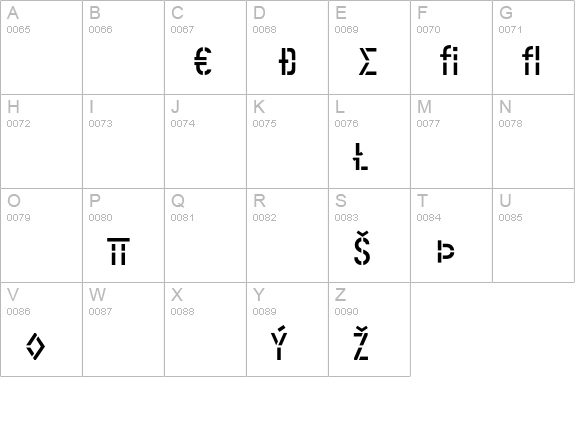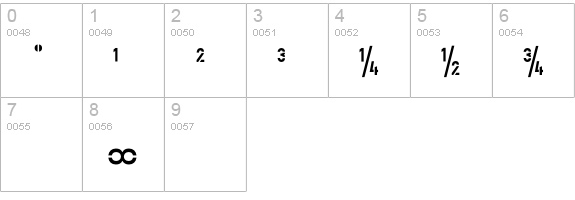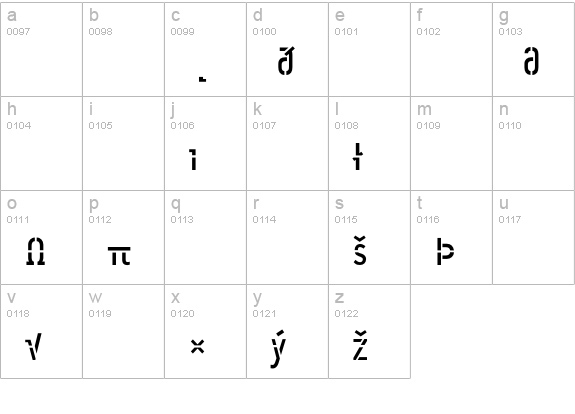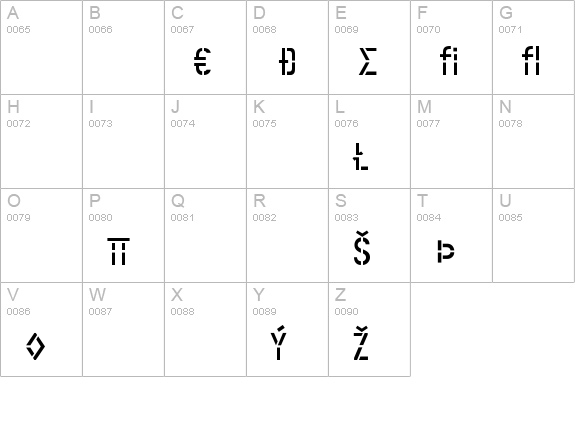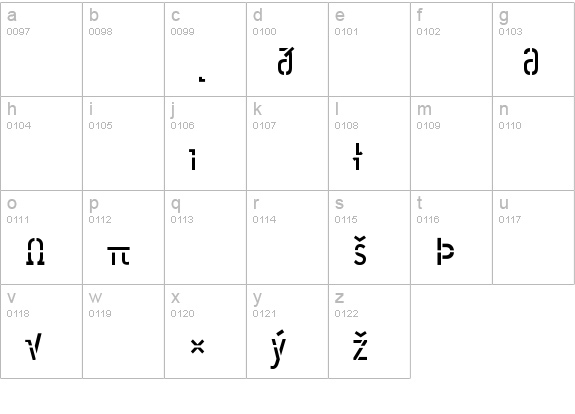
The Offline-RegularExpert font is a versatile and stylish typeface that exudes professionalism and sophistication. Its clean lines and balanced proportions make it perfect for a wide range of design projects, from branding to editorial layouts. This modern yet timeless font is designed to enhance readability and elegance in any application. Best of all, the Offline-RegularExpert font is available for free download at FontsMarket.com. This means you can elevate your designs without any cost, making it a valuable addition to your font collection. Whether you're working on a print project or a digital design, this font will surely make a strong impression with its classic and refined aesthetic. Download the Offline-RegularExpert font today and take your design to the next level!